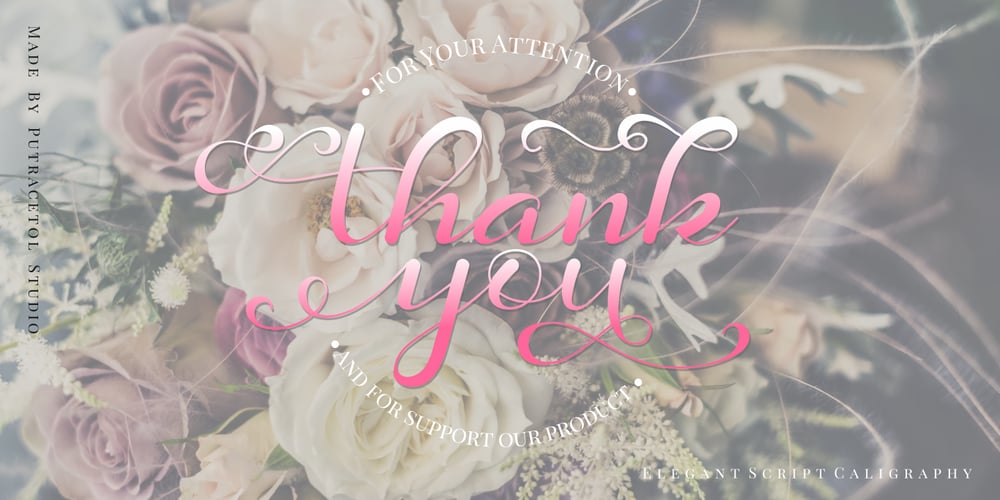
Daysha
Daysha font
Daysha Font Family was designed by Putra Novembria Candra Kusuma and published by Putracetol. Daysha contains 1 styles and family package options. Daysha is a beautiful modern calligraphy wedding font. This font is feminime, elegant, messy and modern. Daysha perfect for wedding event, anniversary, birthday,greeting cards, logotype, branding, wedding invite and card, elegant logo, poster, packaging, stationery, website, and any other projects requiring a handwritten and luxurious touch.